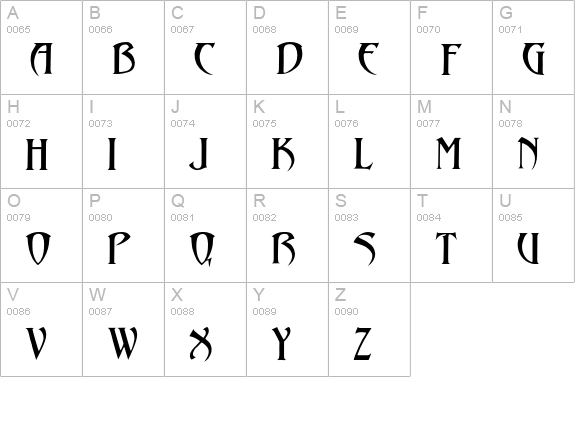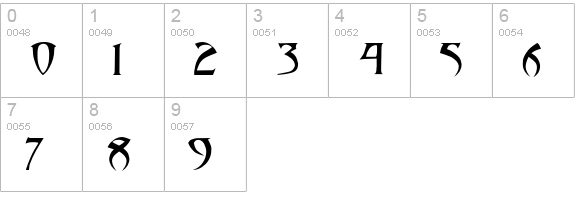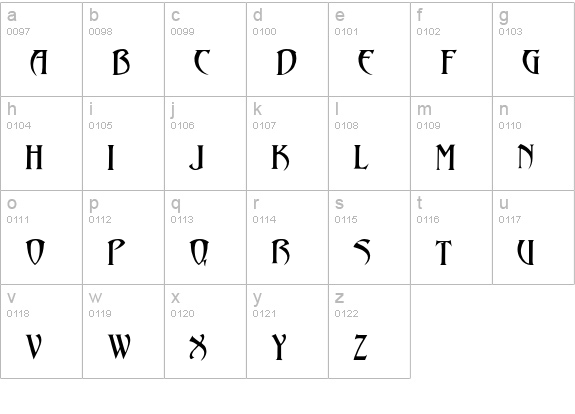
Abaddon Font Details
Abaddon font is an elegant and modern typeface that exudes sophistication and style. With its sleek lines and sharp angles, this font is perfect for creating eye-catching designs that demand attention. Whether you're working on a branding project, website design, or any other creative endeavor, Abaddon font is sure to elevate your work to the next level. Best of all, Abaddon font is available for free download at FontsMarket.com. This means you can start using this exceptional font in your projects right away, without having to worry about any additional costs. Don't miss out on the opportunity to add Abaddon font to your design toolkit and unlock a world of creative possibilities. Download it now and see for yourself why this font is a must-have for any designer.